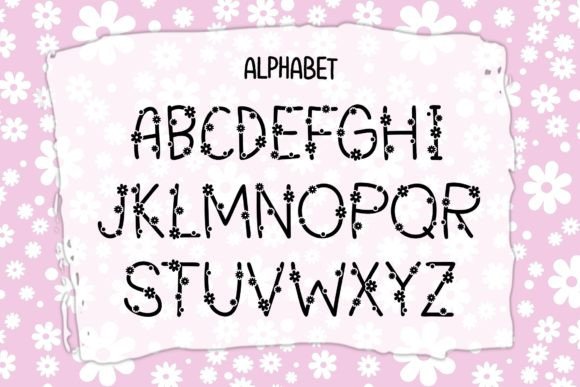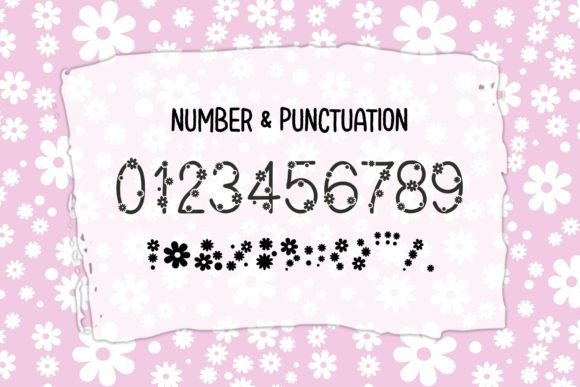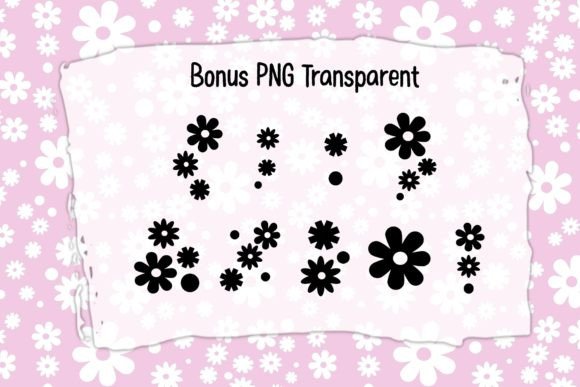
Introduction to Little Daisy Font
As a designer, have you ever stumbled upon a font that instantly sparks creativity and makes your project come alive? That’s exactly what happened to me when I discovered the charming Little Daisy Font. The moment I saw its adorable daisy-adorned characters, I knew I had to share it with fellow designers and creative enthusiasts. This delightful font is more than just a design resource – it’s a way to add a touch of whimsy and personality to any project.
With its high-quality design and transparent background, the Little Daisy Font is perfect for designers looking to elevate their creative projects. Whether you’re working on a logo, branding, or art print, this font is sure to bring a smile to your client’s face. And the best part? It’s available for free download, making it an invaluable resource for designers on a budget.
Key Features of Little Daisy Font
- High-quality design resource ideal for creative projects, including logos, branding, and typography.
- Comes with a transparent background, making it easy to customize and integrate into various design elements.
- Features a unique and playful style, making it perfect for children’s books, nursery decor, and other whimsical creative projects.
Honest Review: Little Daisy Font
As a designer, I’m always on the lookout for high-quality design resources that can elevate my creative projects. Little Daisy Font caught my attention with its unique and charming design. I decided to give it a try and see if it lives up to its promise.
- ✨ Beautiful and elegant design that adds a touch of whimsy to any project
- ✨ Comes with a transparent background, making it easy to use in various design contexts
- ✨ Suitable for a wide range of creative projects, from branding to editorial design
While Little Daisy Font excels in many areas, there are a few limitations to consider:
- ⚠️ Limited character set, which may not be suitable for extensive typography projects
- ⚠️ Not ideal for use in small text sizes, as the font may become difficult to read
Overall, I’m impressed with Little Daisy Font’s unique design and versatility. While it may not be perfect for every project, it’s an excellent addition to any designer’s toolkit. With a little creativity, you can achieve stunning results with this high-quality design resource.
The Little Daisy Font is ideal for creating invitations, greeting cards, and other paper crafts. It’s also great for adding a touch of whimsy to digital projects, such as social media graphics and presentations.
To get the most out of the Little Daisy Font, experiment with different font sizes and colors. You can also pair it with other high-quality fonts to create a unique and eye-catching design. Additionally, consider using a transparent background to make the font stand out.